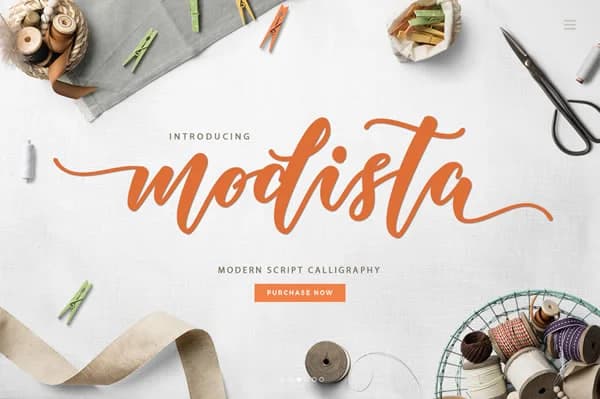
Modista Font by No Gravity Type is a hand-lettered script that combines flowing organic strokes with practical clarity, making it an ideal choice for design work that demands both artistry and legibility. The typeface captures genuine handwritten character while maintaining the consistency needed for professional applications across all major design software platforms.
Creative professionals frequently select this script for luxury wedding stationery, boutique brand packaging, personalized monogram designs, and custom vinyl decal projects. The natural variation in stroke weight creates visual warmth without compromising readability on product labels, greeting card layouts, or digital brand applications. Its refined aesthetic appeals to designers who prioritize authenticity over artificial perfection, particularly when crafting high-end identity systems or specialized packaging work that requires a genuine personal touch.
Small business owners and crafters will find this typeface especially valuable for heat transfer applications, DIY signage, and creating personalized gifts. From Instagram Stories graphics to custom monogram artwork, Modista delivers the hand-drawn sensibility that distinguishes boutique offerings in competitive markets. The font's balanced design works seamlessly across both print and digital contexts, providing the flexibility you need for varied creative projects. Discover Modista Font on Creative Fabrica and add this elegant script to your design collection.
Modista Font is a script font that shines as a display or heading face. Pair it with a clean sans-serif or serif font for body text β the contrast creates a clear hierarchy while the two styles stay balanced and easy to read.
Modista Font